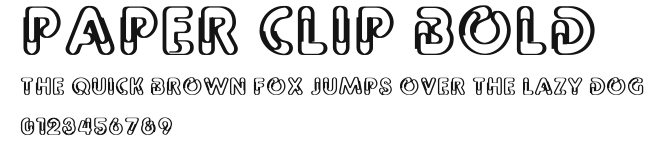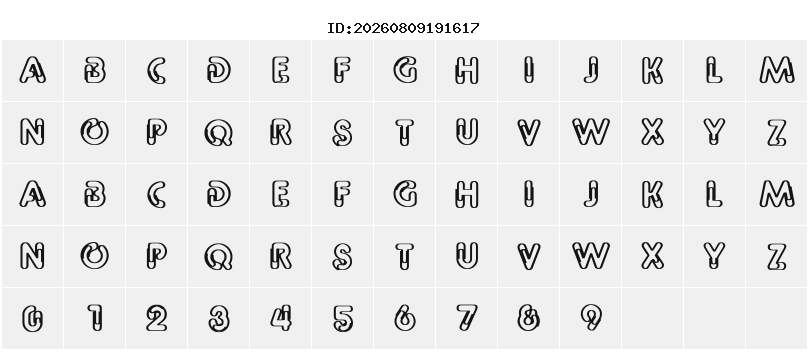
• Font Name: Paper Clip Bold
• Full Font Name: Paper Clip Bold
About Paper Clip Bold.ttf
Paper Clip Bold.ttf is a modern, elegant sans-serif font designed for ultimate readability and visual harmony. Perfect for branding, headlines, web design, and print materials.